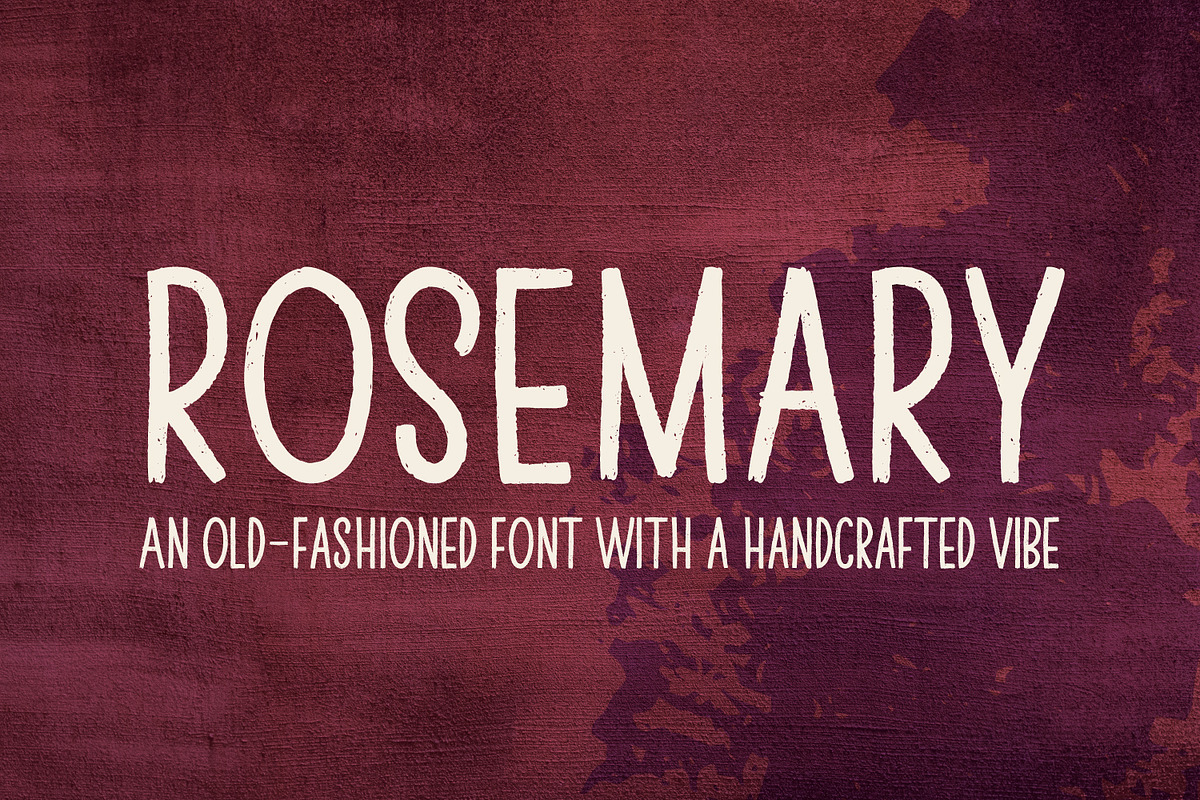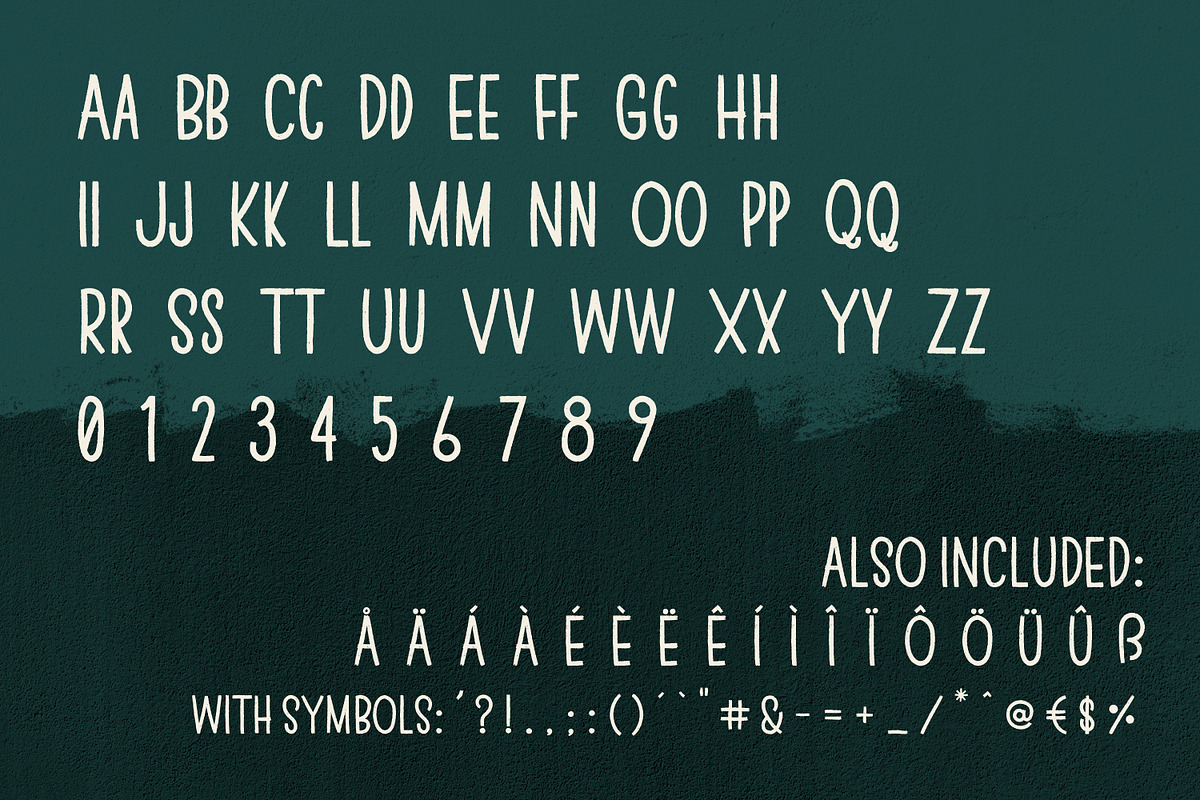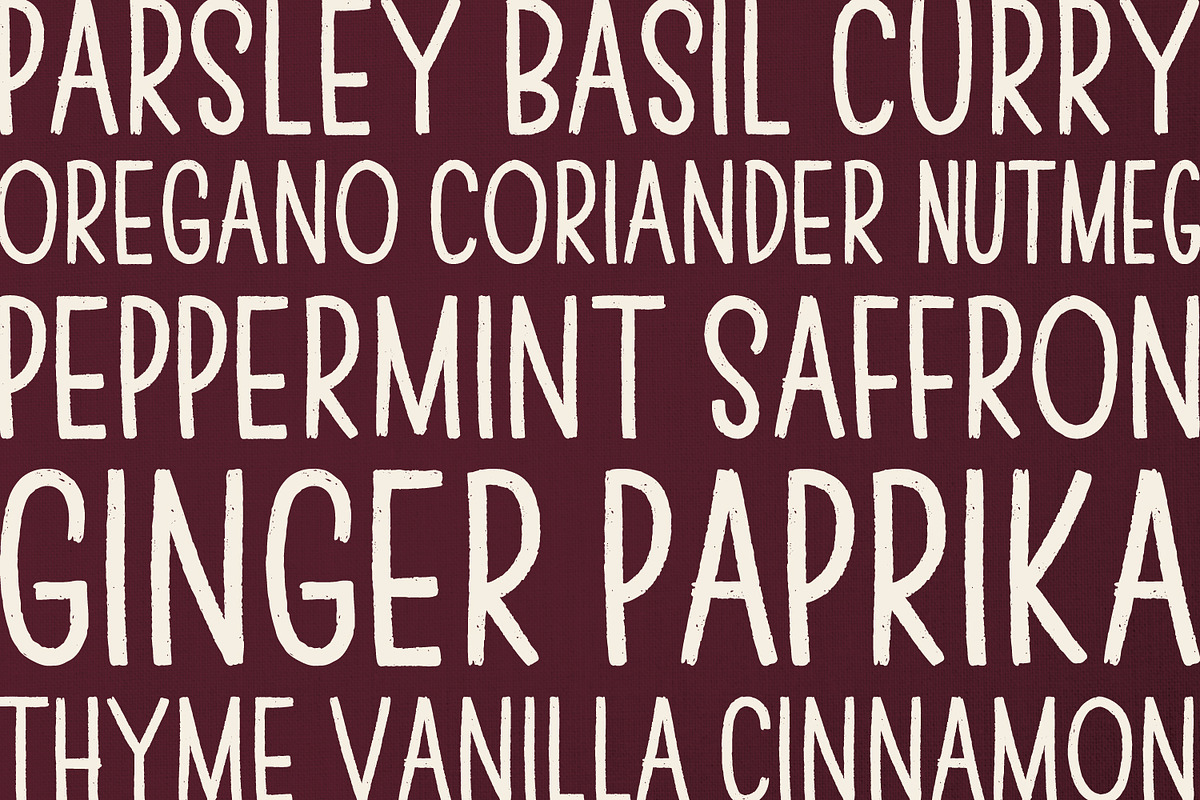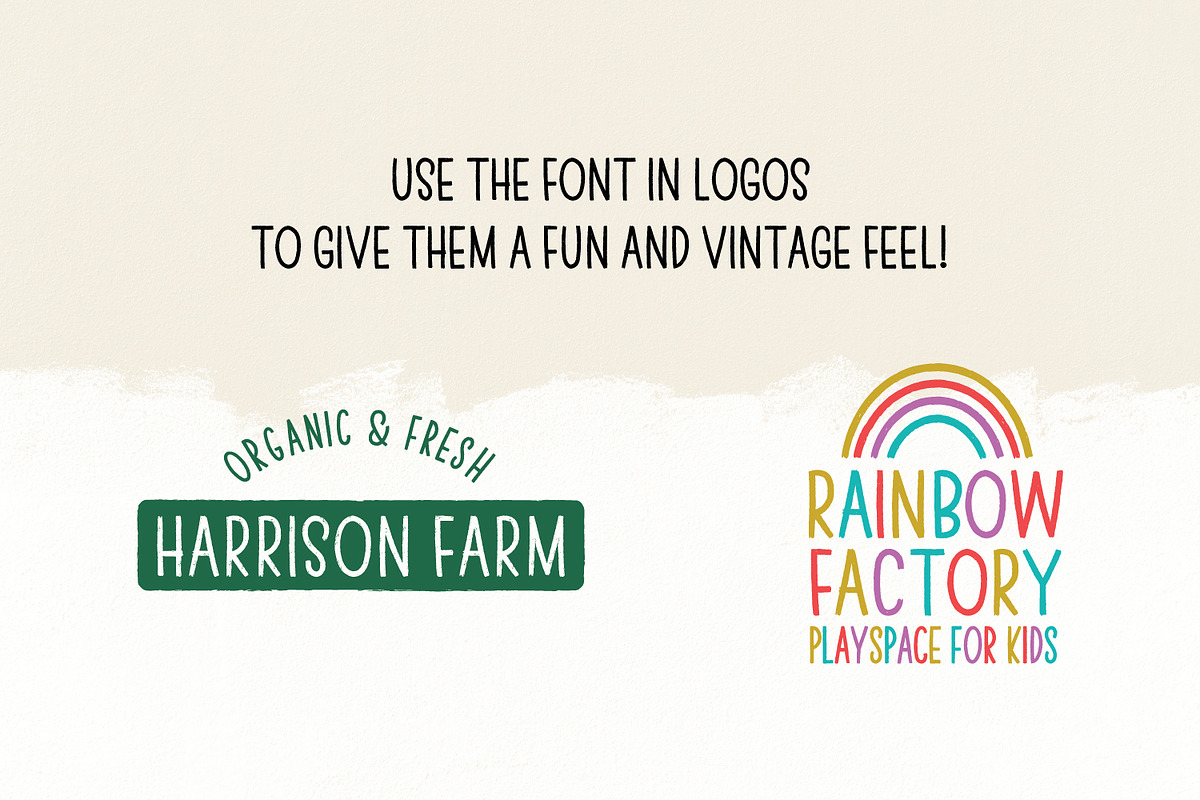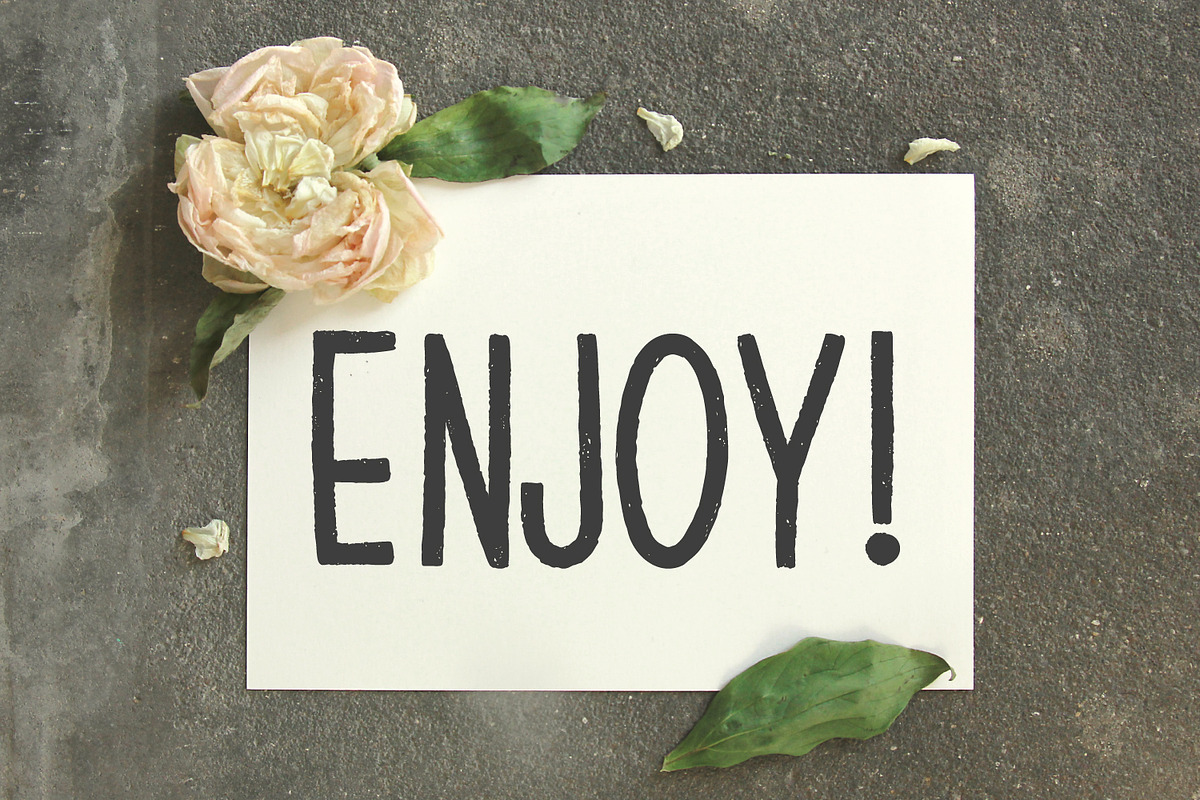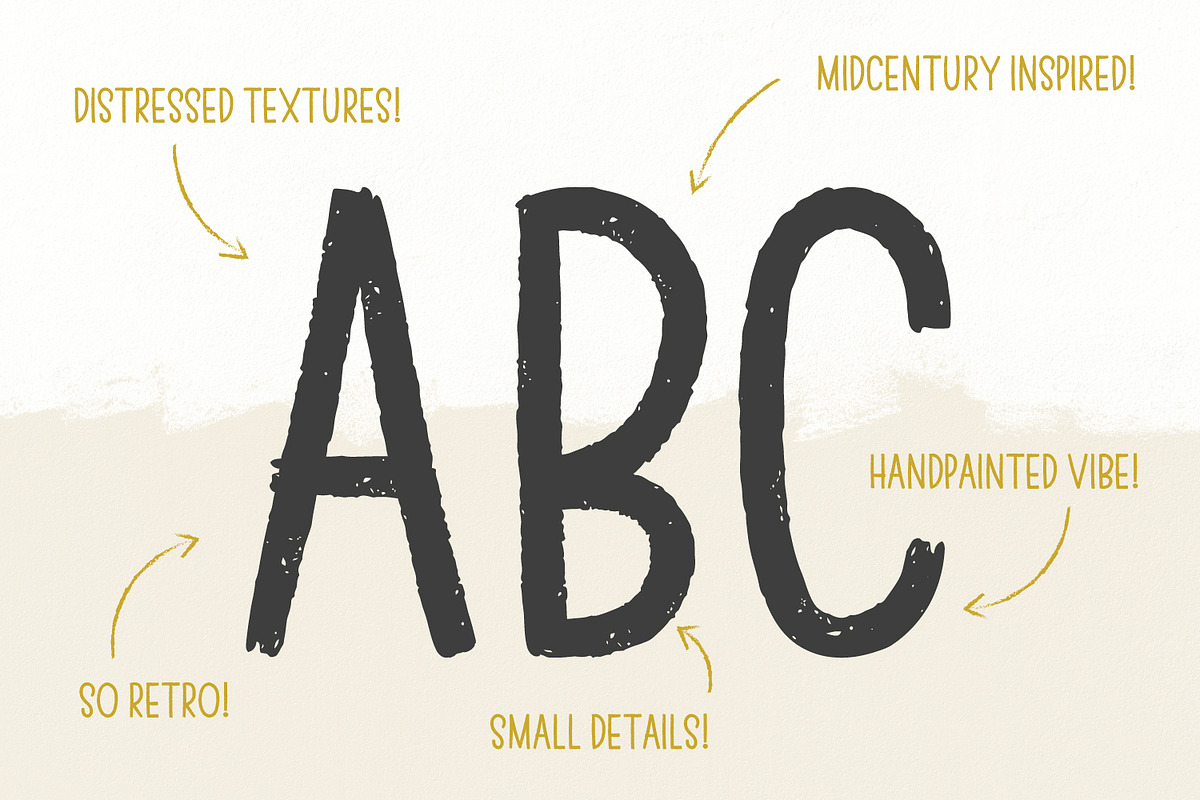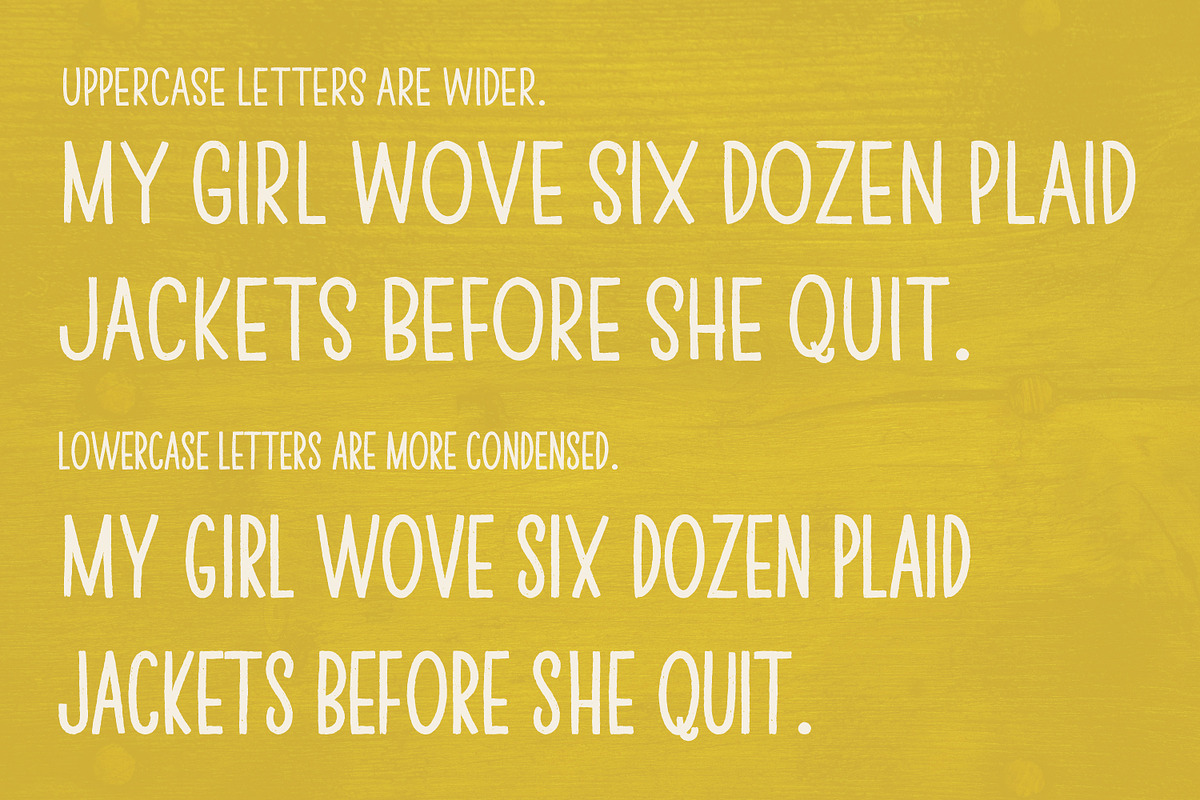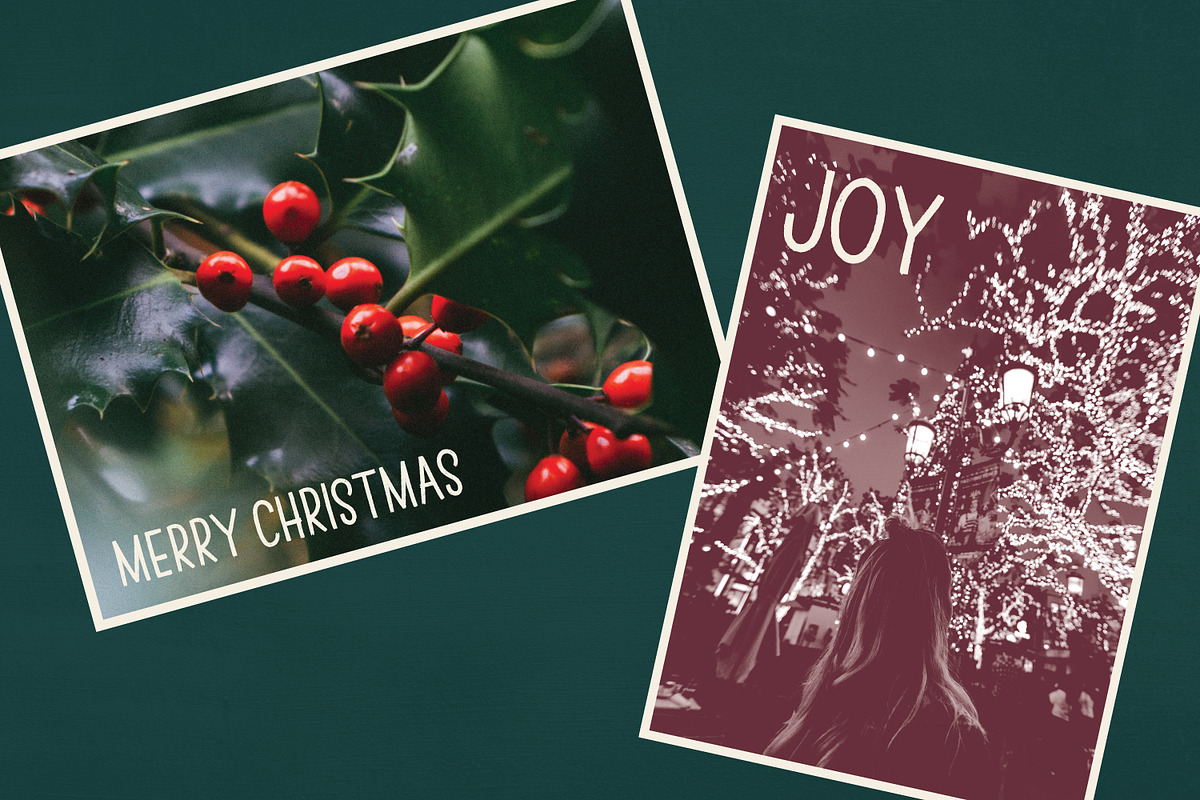
Rosemary
Rosemary is an old-fashioned font with a handcrafted vibe. The font was inspired by vintage shop signs in NYC. Rosemary is filled with little details in the textures of the letters, which makes it so charming!
The font is an uppercase font, with alternatives in the lowercase variety. The font includes loads of different symbols and accents, see pictures for details!